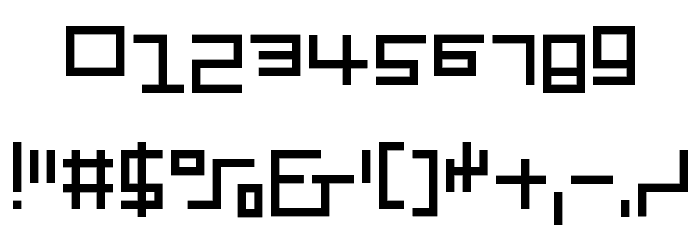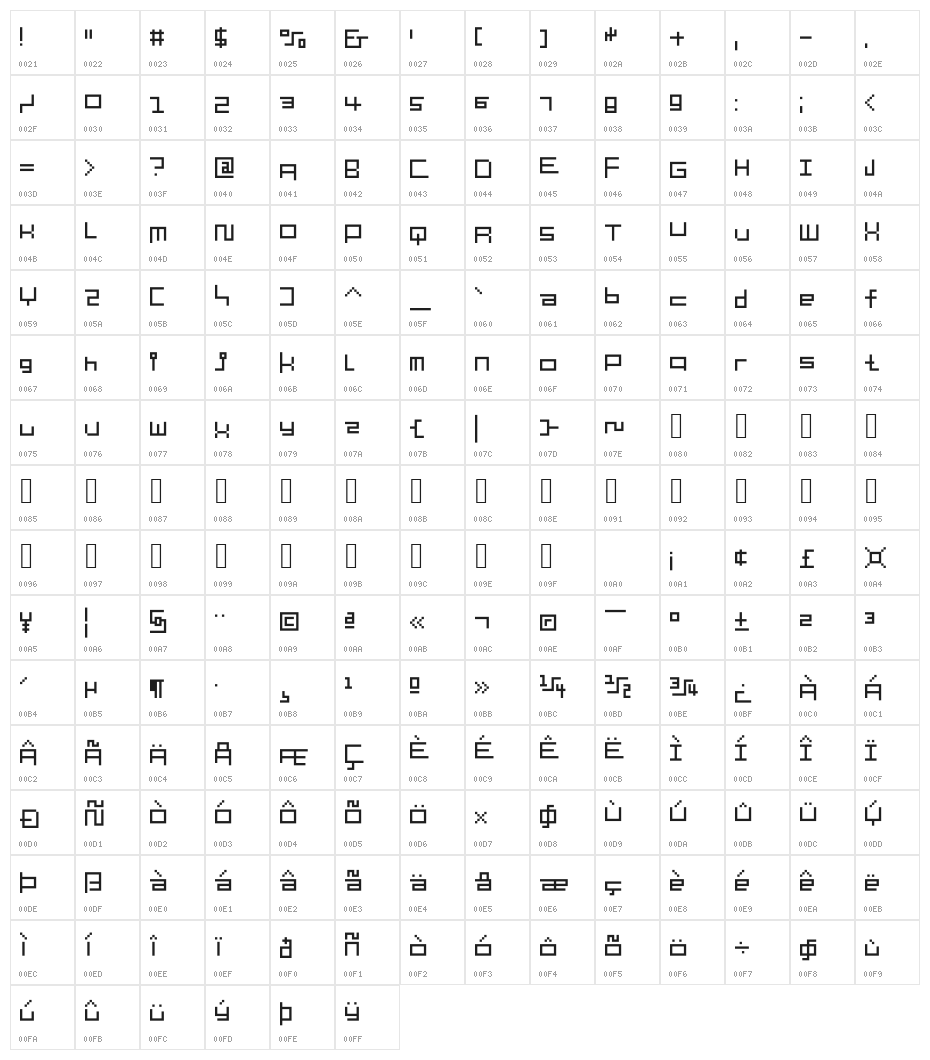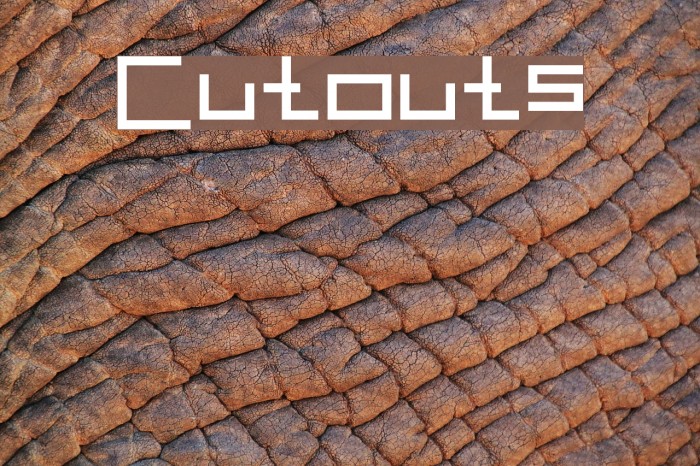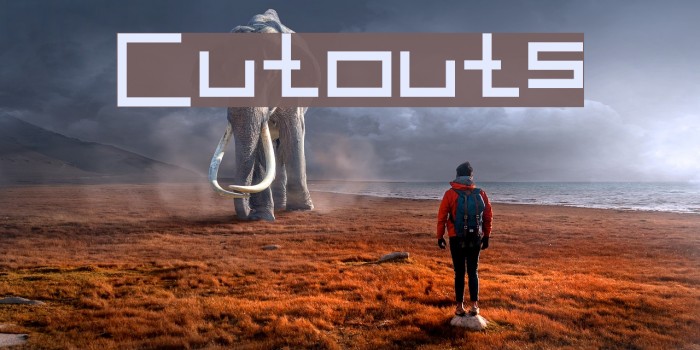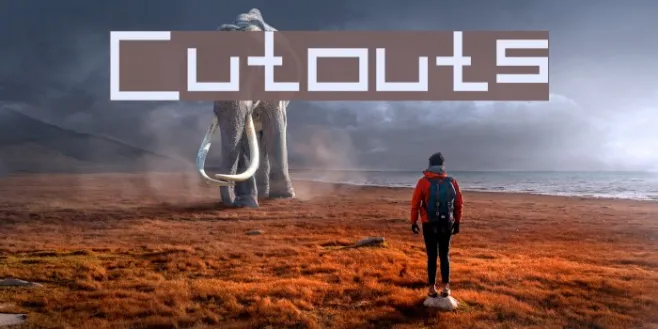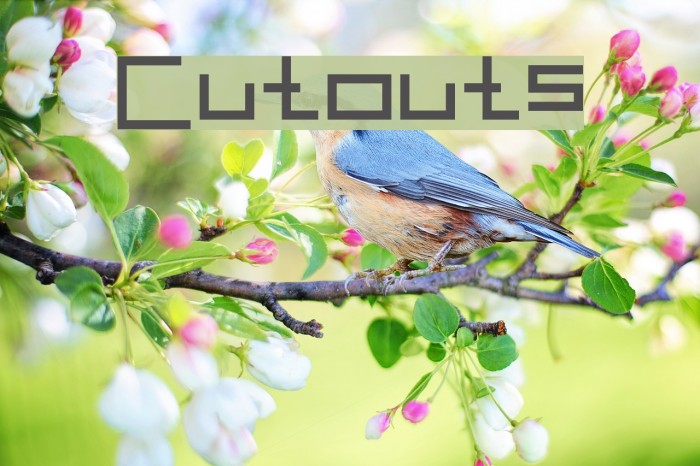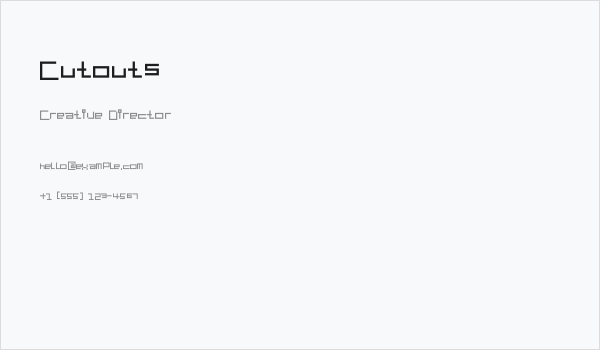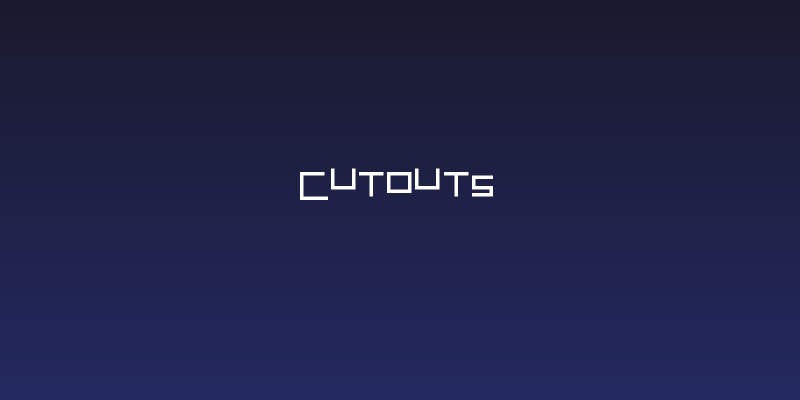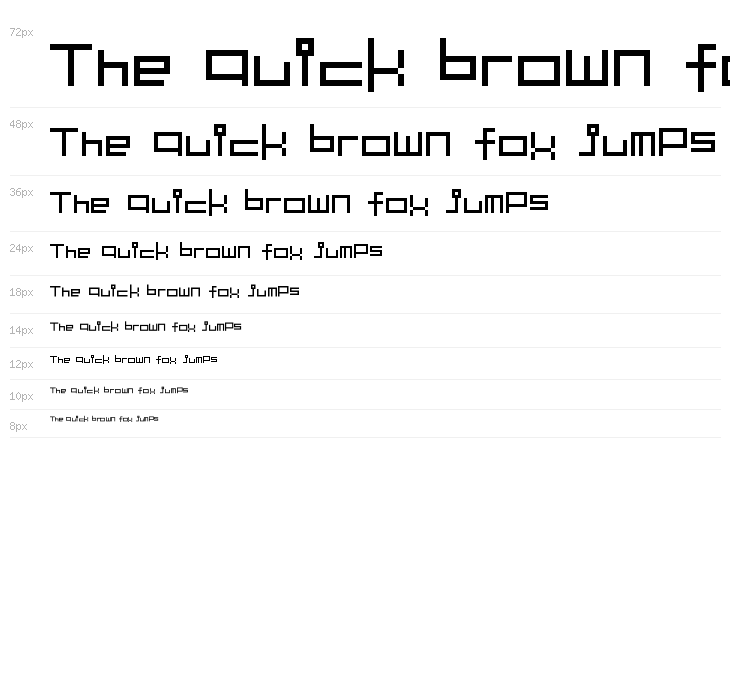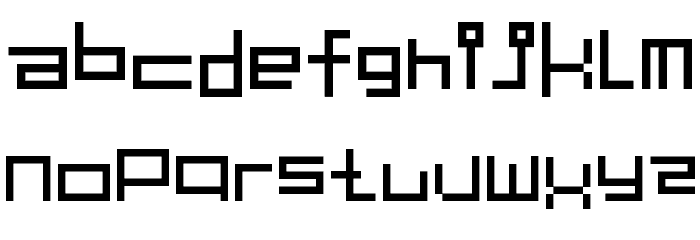
Cutouts Font
Cutouts Description
This font features a geometric and blocky design, reminiscent of digital or pixelated text. Each character is constructed with straight lines and right angles, giving it a distinctly modern and technological appearance. The uniformity in stroke width across all characters contributes to a cohesive and structured look. The uppercase and lowercase letters maintain a consistent height, enhancing readability and balance. Numbers and special characters follow the same design principles, ensuring a seamless integration with the alphabet. This font's style is ideal for projects that require a futuristic or digital aesthetic.